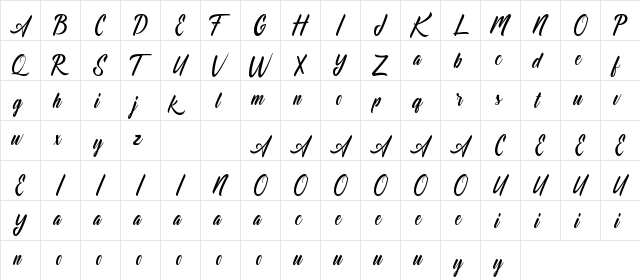
Dominick Regular
| Foundry | Graphix Line Studio |
| Designer | Aldi Raya Pradipta |
Design Context for Dominick Typeface
Dominick is a composed and adaptable typeface that performs quietly and consistently across a wide range of design contexts.